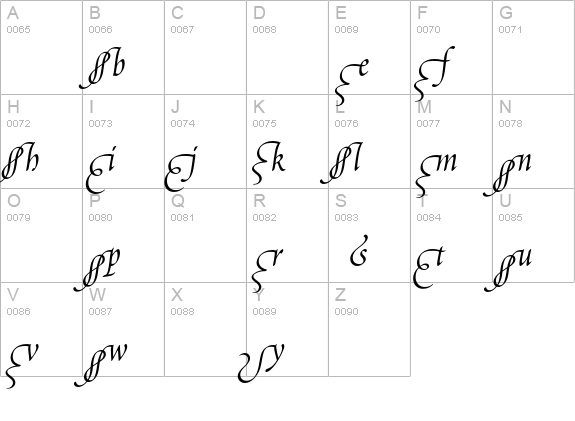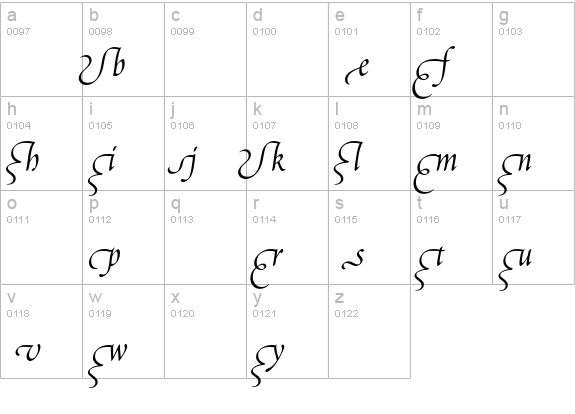
Poetica Supp Lowercase Beginnings II Font Details
Introducing Poetica Supp Lowercase Beginnings II font, a delicate and elegant typeface that exudes a sense of artistic sophistication. With its graceful curves and subtle details, this font is perfect for adding a touch of poetic charm to your designs. The lowercase characters in this font are beautifully crafted, each letter flowing seamlessly into the next, creating a harmonious and cohesive look. Whether you're working on a poetry book, wedding invitations, or any other creative project, Poetica Supp Lowercase Beginnings II font will bring a unique and enchanting quality to your work. This font is not only visually stunning but also versatile, making it suitable for a wide range of design applications. From branding to editorial design, this font will elevate your projects and give them a sophisticated edge. Best of all, Poetica Supp Lowercase Beginnings II font is available for free download at FontsMarket.com. So, why wait? Add this exquisite font to your collection today and let your creativity soar with its captivating beauty.